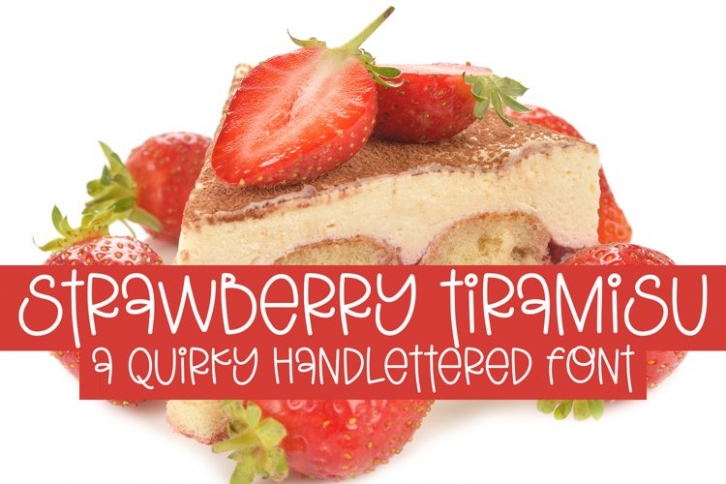
Strawberry Tiramisu is a beautiful font that was designed by plusstore. It's a great choice for designers and creatives who need such a font. It was released on July 9, 2022 and the file size is 13.46 MB. Strawberry Tiramisu may give a more youthful, expressive and casual look to your project. It is a very beautiful, refined, elegant, and high-quality font.